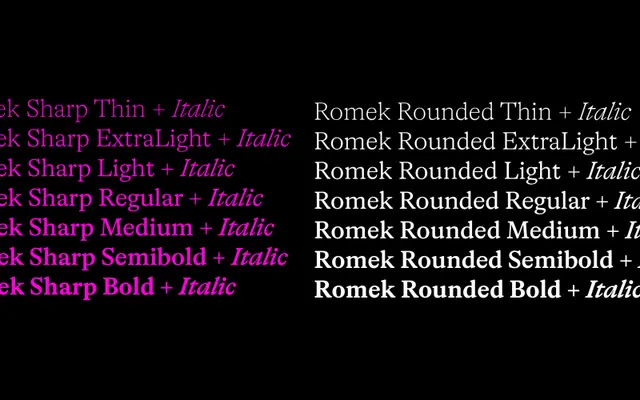
A serif family in 28 styles split between sharp and rounded variants, drawing on early twentieth-century Antiqua designs by Nebiolo and others.
Developed over three years, the family spans seven weights from Thin to Bold in both Sharp and Rounded versions, each with matching italics. Its sources include Genzsch-Antiqua (1906), Orlando (1920) and Paganini (1928), giving it a grounded, pre-modernist character suited to both display and text use. OpenType features run to small caps, old-style figures, ligatures, fractions and Roman numerals, with spacing and kerning by Igino Marini.
Romek is a serif family drawing on early twentieth-century Antiqua sources including Genzsch-Antiqua, Orlando and Paganini, placing it within a transitional to old-style serif tradition with upright, text-capable forms.